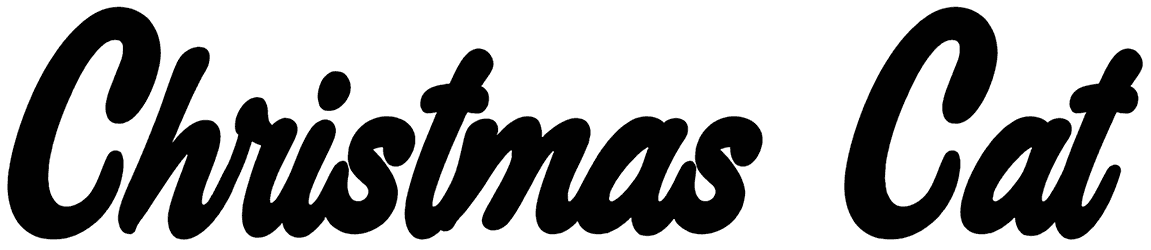
Christmas Cat Font
If you have been looking for a font perfect for the Christmas season, especially something that is adorable, then you will find interest in Christmas Cat! It’s a festive Christmas font that is creative and allows you to create one cursive typography with its bold, cute characters that are fun and have stunning swashes.
Considering it is friendly and hand-drawn, you can include it in most of your projects, plus similar places to books, branding, cards, flyers, invitations, and more.
The Christmas Cat is cute and festive script font. This font is perfect for your festive crafts, such as Christmas cards, New Year’s invites, but also works great for making quotes, and sayings. It includes a wide range of swashes.